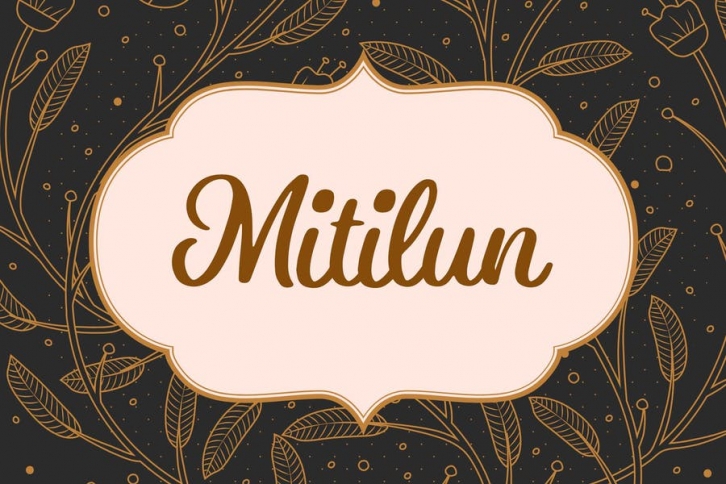
Mitilun is a playful and modern handwritten script font. It can easily be matched to an incredibly large set of projects, so add it to your creative ideas and notice how it makes them stand out!
Suitable for use in title design. Such as apparel, stationery design, logos, greeting card, t-shirt, packaging designs, posters, quotes, invitations, books title, branding, and more. Mitilun includes a complete set of uppercase and lowercase letters, as well as numbers, punctuation, and ligatures.